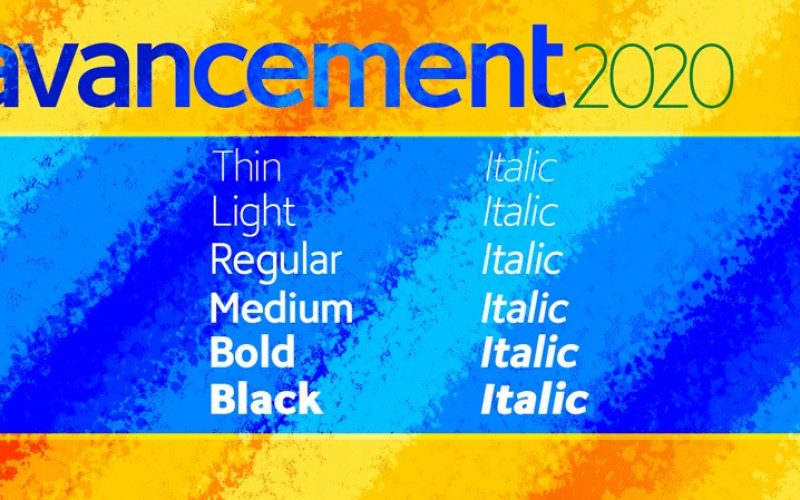
Avancement 2020 Sans Serif Font
Avancement 2020 is basically a redesign of the original Avancement font submitted on my DeviantArt page back in March 2019. It even supports the most current Latin based languages, alongside Greek, Cyrillic, etc. OpenType features such as stylistic alternates, and F-ligatures are supported.